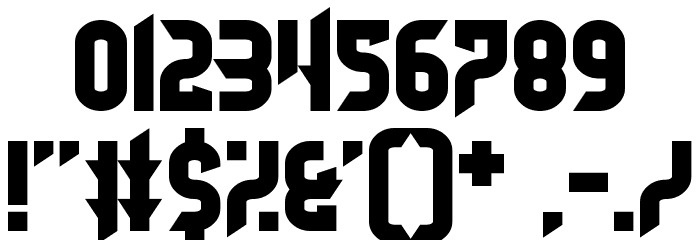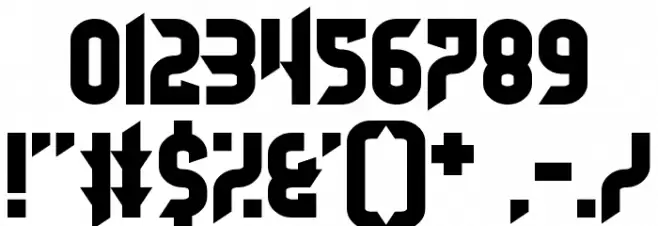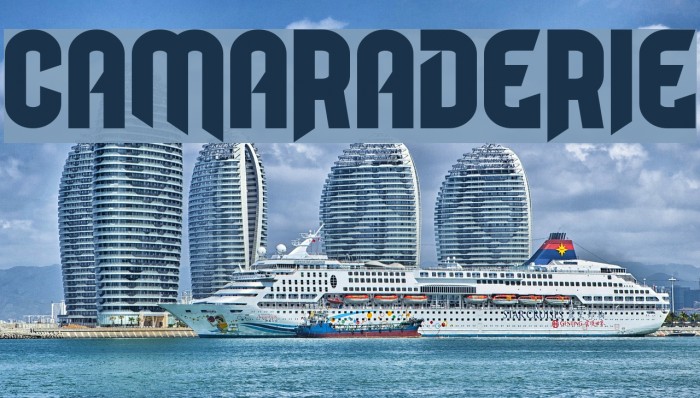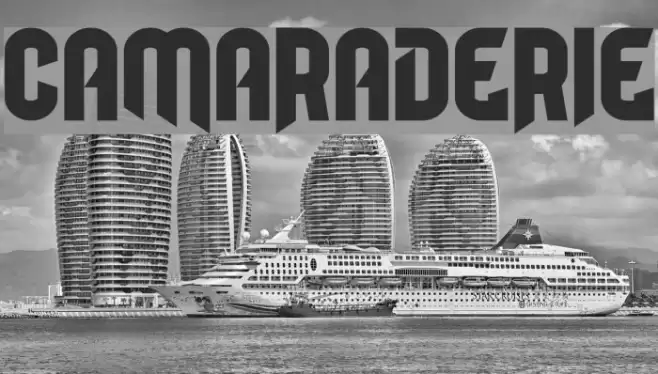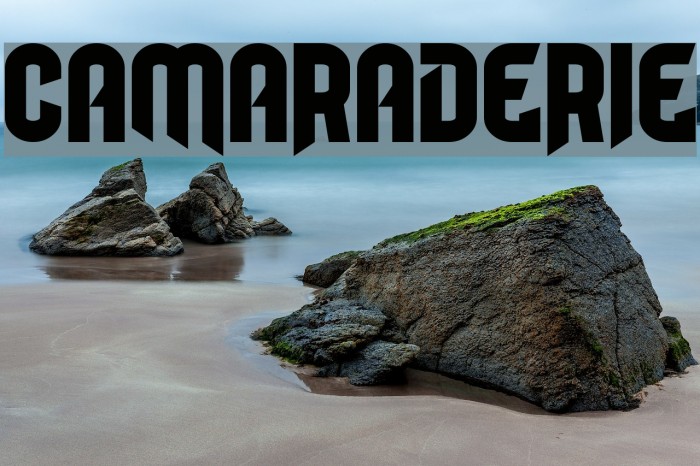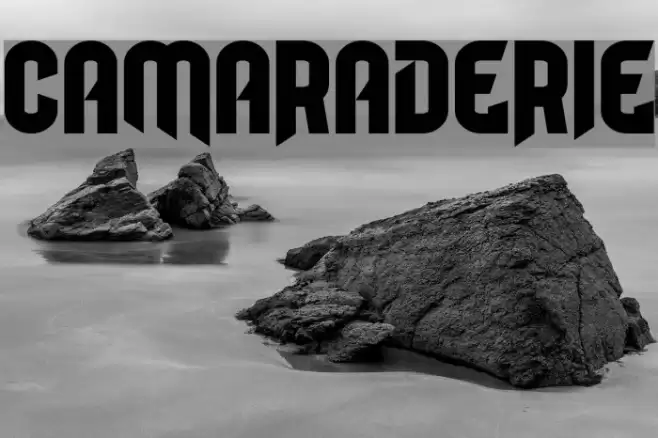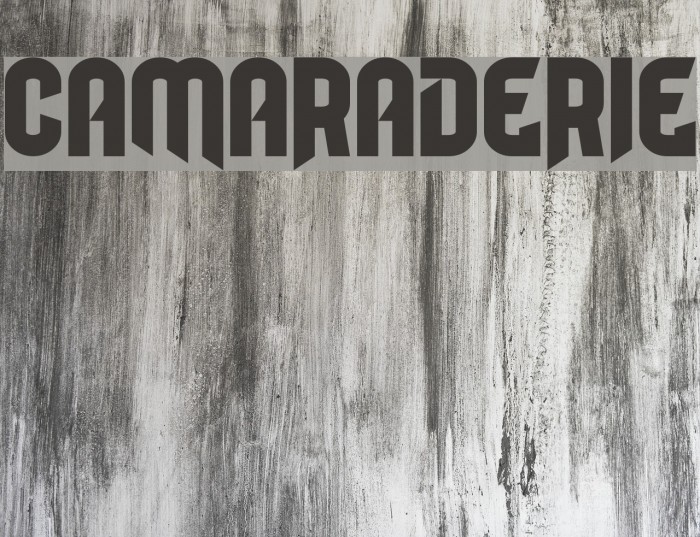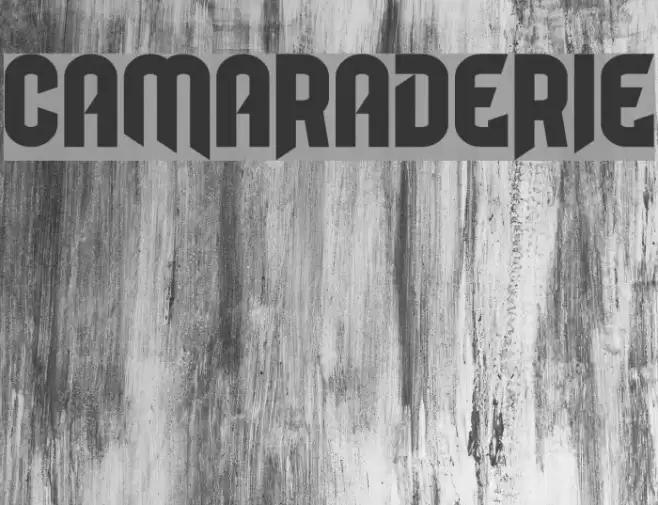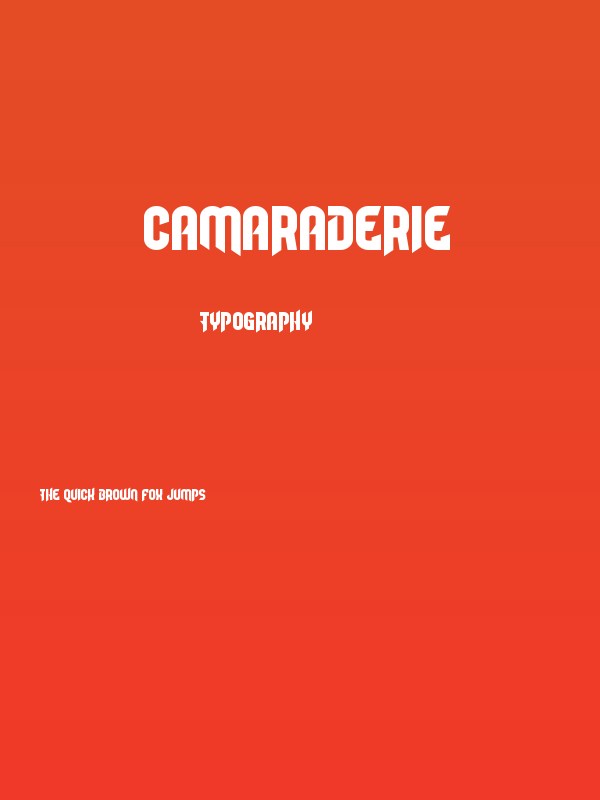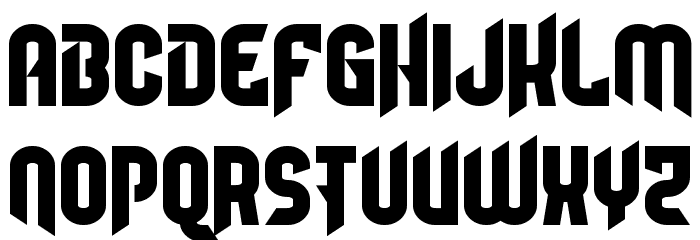
Camaraderie Font
Camaraderie Description
This font features bold, angular characters with a distinct geometric style. The uppercase letters are striking with sharp edges and a blocky appearance, while the lowercase letters maintain a similar aesthetic, creating a cohesive look. The numbers are equally bold, with a consistent thickness that matches the letters. Special characters are designed with the same angular precision, adding to the overall uniformity. This font's strong presence makes it ideal for impactful designs, where attention-grabbing text is essential.